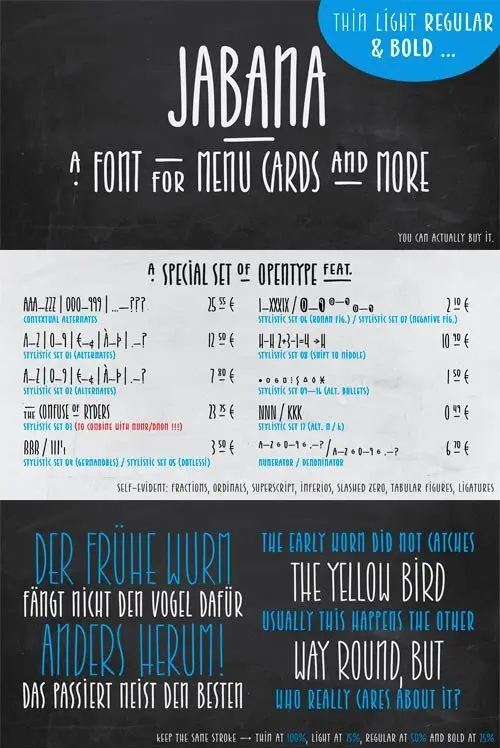
Jabana Font Family
Jabana - a font for menu cards and more. It was developed in 2013 by Nils Thomsen to be his first release at MyFonts. Inspired by having a beer at Hamburgs coffee bars. Super compressed letter shapes, smooth handwritten marker curves and especially a wide range of opentype features define the large character set of Jabana. Jabana is composed of only uppercase letter shapes. Each letter and punctuation got three simple varieties of alternates. This gives a nice looking handwritten nature to the font. They will be randomly chosen by the contextual alternates feature or even by hand via stylistic set (ss01, ss02). The whole characters for serious western european typography comes along Jabana. Beside the standard accented letters, fractions, mathematical glyphs, superiors and inferiors you will find alternates, extra bullets, different arrows, negative figures and roman numerals. Another reason for the amount of 1450 glyphs are the numerator and denominator letters which came from A-Z, punctuation and the extra bullets (ss09-16). They are meant to be used for decoration or distinction. Especially an opentype stylistic set gives an extra touch to it while putting a dot/line above denominators or underneath numerators (ss03+numr/dnom). Naming: Jabana/Jebena is a container used to brew coffee in the Ethiopian, Eritrean and Eastern Sudanese traditional coffee ceremony. It is usually made of pottery and has a spherical base, a neck and pouring spout and a handle where the neck connects with the base.